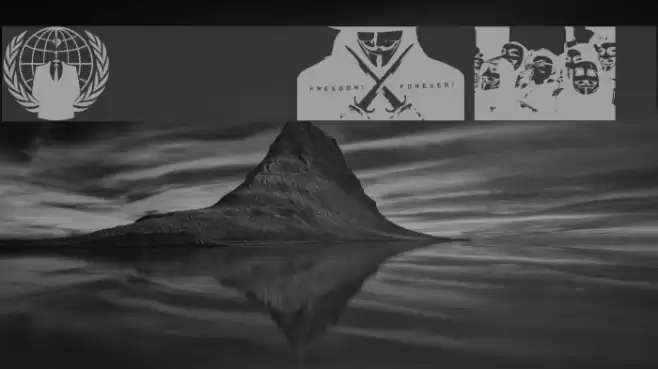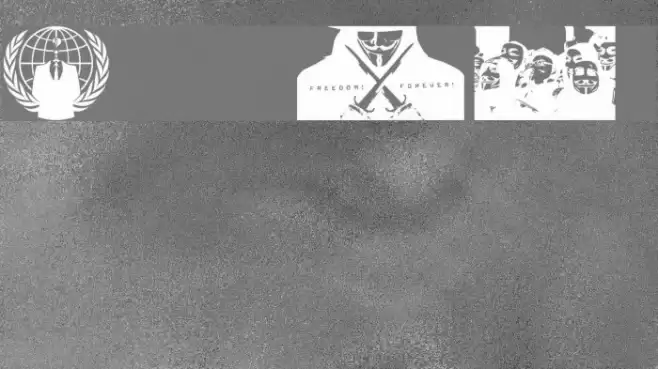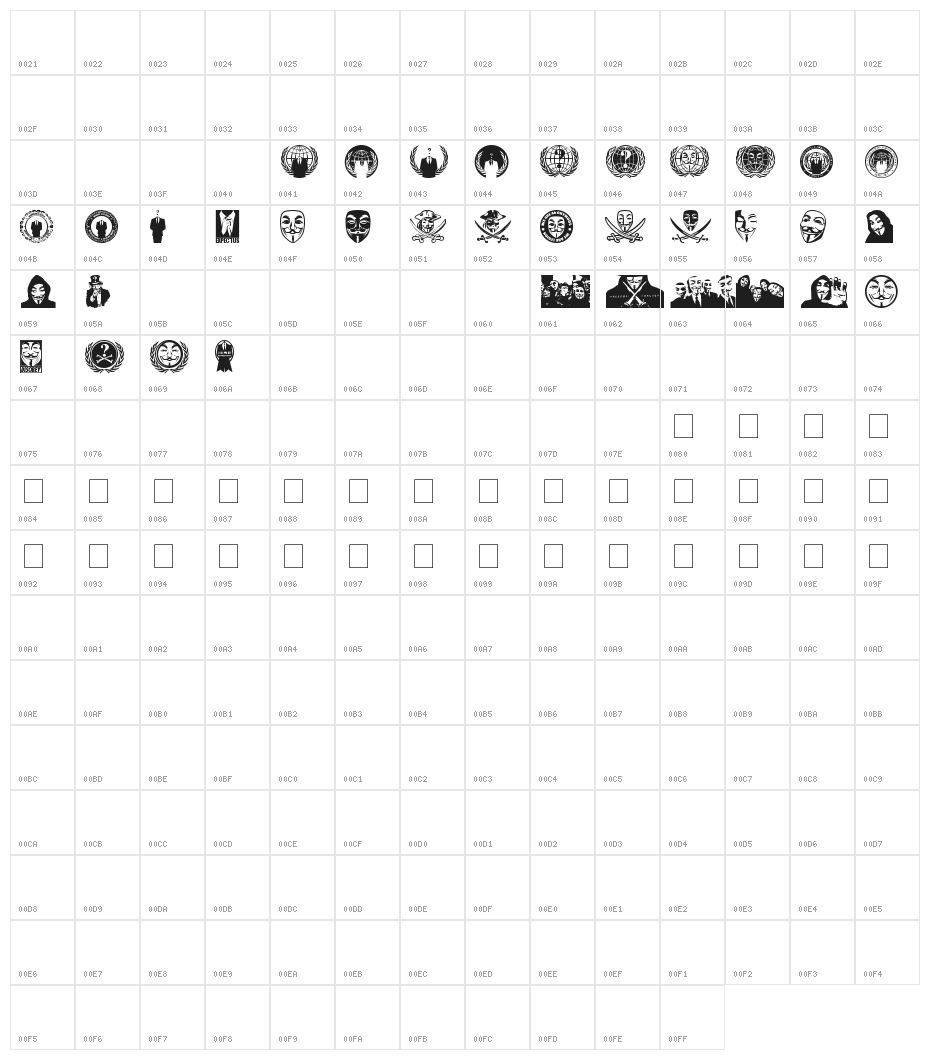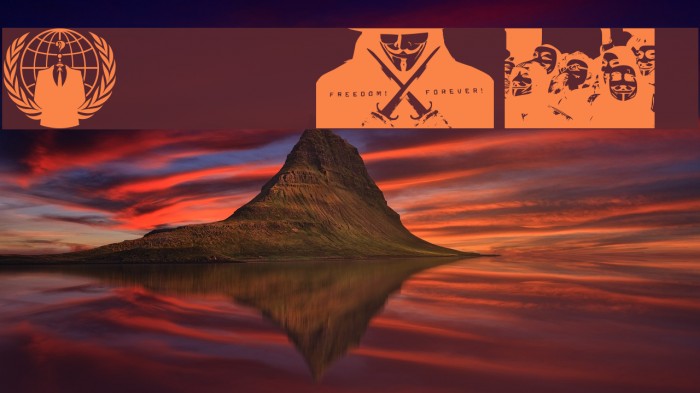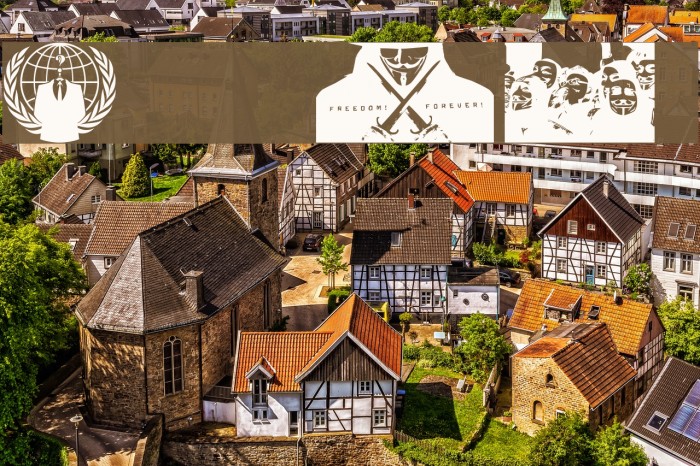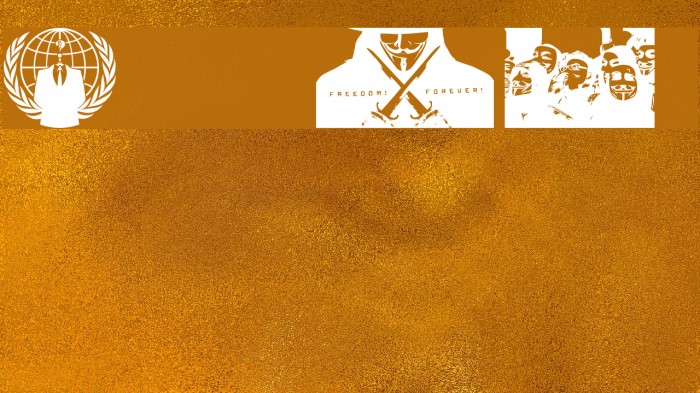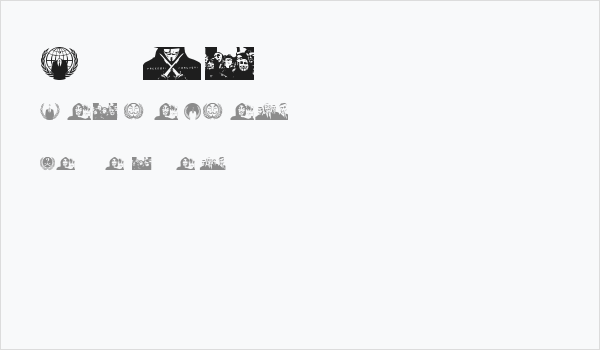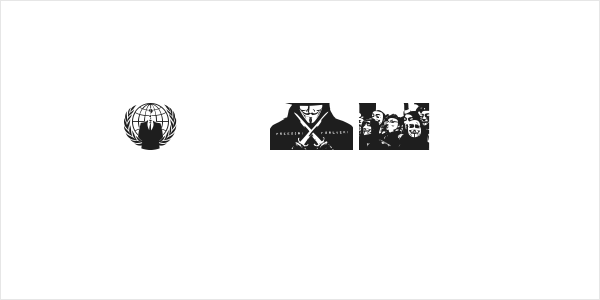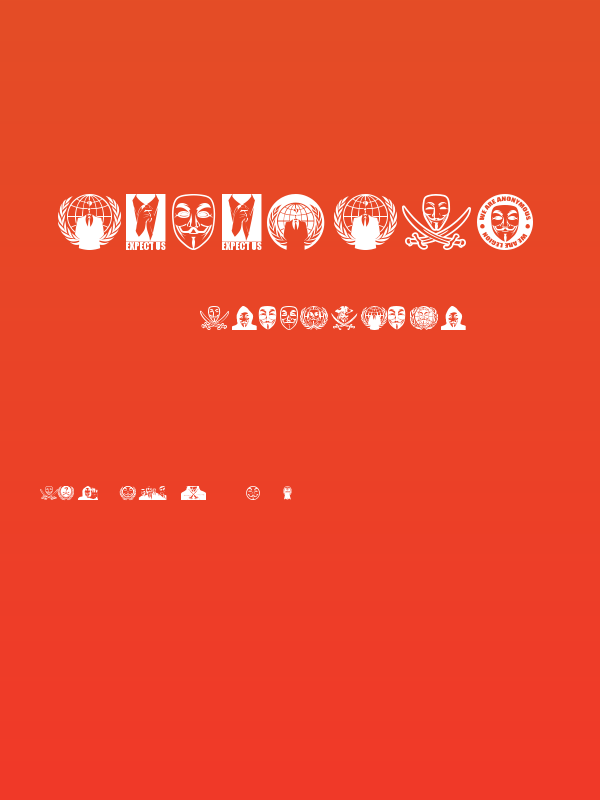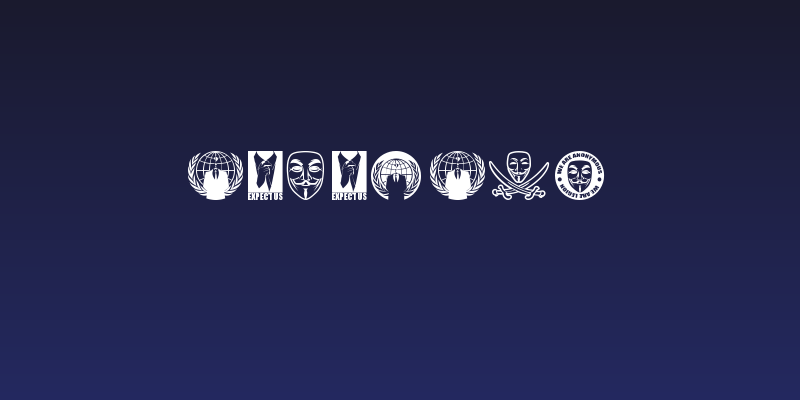
Anonbats Font
Anonbats Description
A collection of bold, high-contrast, black-and-white pictogram glyphs featuring stylized masks, anonymous figures, and emblematic symbols, rendered in a decorative and illustrative style with strong outlines and minimal detail.
Decorative pictogram set with anonymous and mask motifs from Uncategorized fonts.
- Proposed Projects: Logos, protest posters, stickers, digital art, themed event graphics.
- Overall Style: Decorative, Illustrative, Modern
- Use Case: Logos, Icons, Posters, Stickers